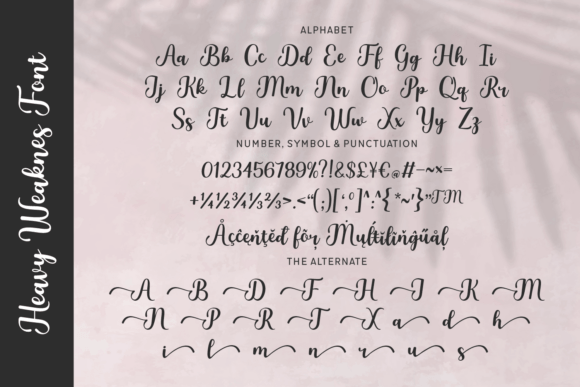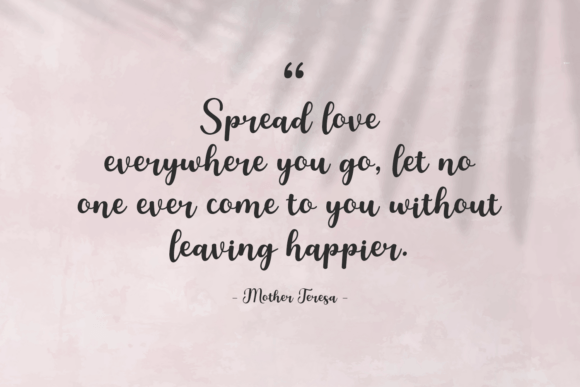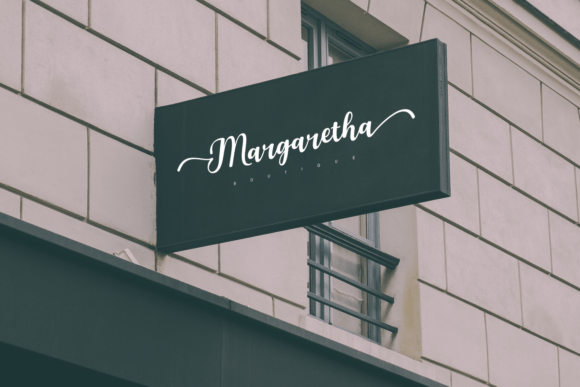
Introducing Heavy Weakness Font: Elevate Your Designs with Elegance and Flair
In the world of typography, a well-chosen font can make all the difference in transforming a design from ordinary to extraordinary. For designers and crafters seeking to add a touch of sophistication and creativity to their projects, the Heavy Weakness Font is an exceptional choice. This stylish script font is characterized by its bold, flowing letters and unique swash design, making it perfect for a variety of applications, from invitations and posters to branding and more.
The Distinctive Features of Heavy Weakness Font
Heavy Weakness Font stands out with its distinctive features, which include:
- Bold and Flowing Letters: The font features bold, cursive letters that flow smoothly, creating a sense of movement and elegance.
- Unique Swash Design: What sets Heavy Weakness apart are its front and back swashes. These decorative elements add a touch of flair to the font, making it more artistic and eye-catching.
- Versatility: The font’s design allows it to be versatile, suitable for various design projects, including formal and informal applications.
Applications of Heavy Weakness Font
The Heavy Weakness Font is incredibly versatile, making it suitable for a wide range of design projects. Here are some of the ideal applications for this beautiful font:
- Invitations: Whether it’s a wedding invitation, a birthday party invite, or any other special occasion, Heavy Weakness Font adds a touch of class and sophistication.
- Posters: For posters that need to stand out, this font is an excellent choice. Its bold and flowing letters, combined with swashes, make it perfect for titles and headings.
- Branding: For businesses looking to create a unique brand identity, Heavy Weakness Font can be a valuable asset. Its distinctive look can help a brand stand out in a crowded market.
- Stationery: Enhance your stationery designs, such as notebooks, journals, and greeting cards, with the elegant touch of Heavy Weakness Font.
Why Choose Heavy Weakness Font?
There are several reasons why designers and crafters might choose Heavy Weakness Font for their projects:
- Elegance and Sophistication: The font’s design exudes elegance and sophistication, making it perfect for projects that require a high-end look.
- Unique Aesthetic: The swashes and flowing letters provide a unique aesthetic that can help designs stand out.
- Easy to Read: Despite its bold and decorative nature, Heavy Weakness Font remains easy to read, making it functional as well as beautiful.
- Customization: The font’s swashes can often be customized or adjusted, allowing designers to tailor the font to fit their project’s specific needs.
Tips for Using Heavy Weakness Font Effectively
To get the most out of Heavy Weakness Font, consider the following tips:
- Pair with Simpler Fonts: For body text, pair Heavy Weakness Font with a simpler, sans-serif font to create contrast and ensure readability.
- Adjust Swashes: Experiment with the swashes to find the perfect balance for your design. Sometimes, less is more, while other times, the swashes can be the focal point.
- Consider Size: The font’s impact can vary with size. Use it prominently for headings and titles, and consider a more restrained use for body text.
Heavy Weakness Font is a powerful tool for designers and crafters looking to add a touch of elegance and creativity to their projects. Its bold, flowing letters and unique swash design make it stand out, offering endless possibilities for beautiful and impactful designs. Whether you’re working on invitations, posters, branding, or any other project, Heavy Weakness Font is sure to elevate your design to new heights.